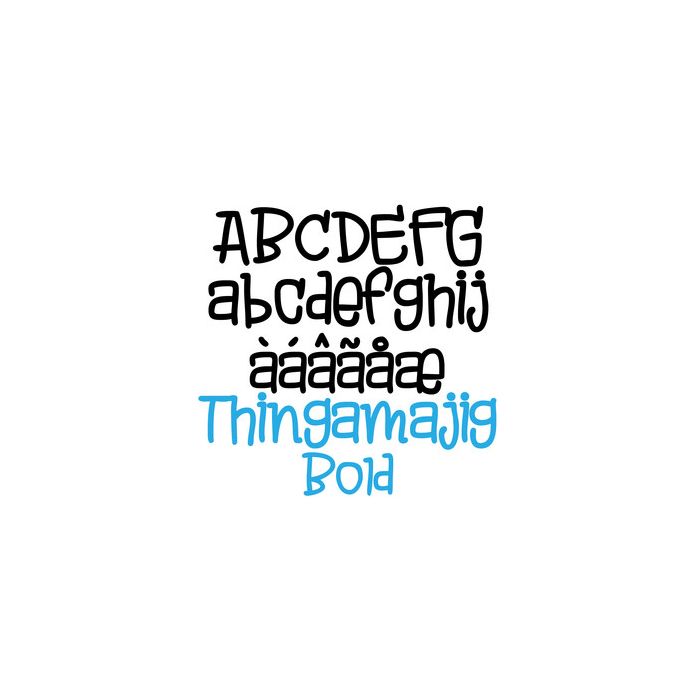
Pn Thingamajig
Please note that PN Thingamajig Font must be purchased for commercial use. You are welcome to download and test this font for personal and non-commercial projects at no cost. This quirky, hand-crafted sans serif typeface is perfectly suited for a wide range of playful and youthful design applications, including comic books and graphic novels, children's merchandise and packaging, fun video game titles, energetic posters, informal branding for creative businesses, and any project needing a whimsical, cartoonish, and delightfully irregular feel.
The reason PN Thingamajig Font is genuinely exciting is its strong, playful personality and hand-drawn essence. It immediately captures the vibrant, slightly chaotic energy of comic book lettering, making any text look like it popped right off a cartoon page. Its thick, bold strokes, combined with an intentionally uneven baseline and informal shapes, guarantee maximum visual fun. This fun and spirited aesthetic is perfect for projects aimed at a younger audience or those that demand a lighthearted, yet impactful, display style.
The PN Thingamajig Font family is typically comprehensive in its expressive styles, usually offering four key variations to maximize design potential. This often includes a Regular style, a solid Bold weight, and unique styles like Engraved and Engraved Bold to provide textured, layered visual effects. This robust selection allows for versatile and dynamic typography across all your comic-inspired projects. For a font that adds genuine fun and boldness, secure your PN Thingamajig Font Free Download today.